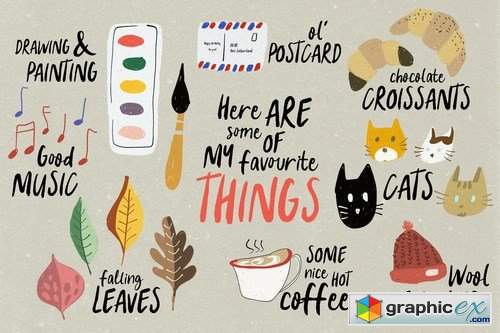
Kate Arden
Kate Arden is a unique and beautiful hand-lettered font with fun & spontaneous style. Kate Arden makes a perfect font for your blog, logo, social media, branding, poster, quotes & so forth, you decide!